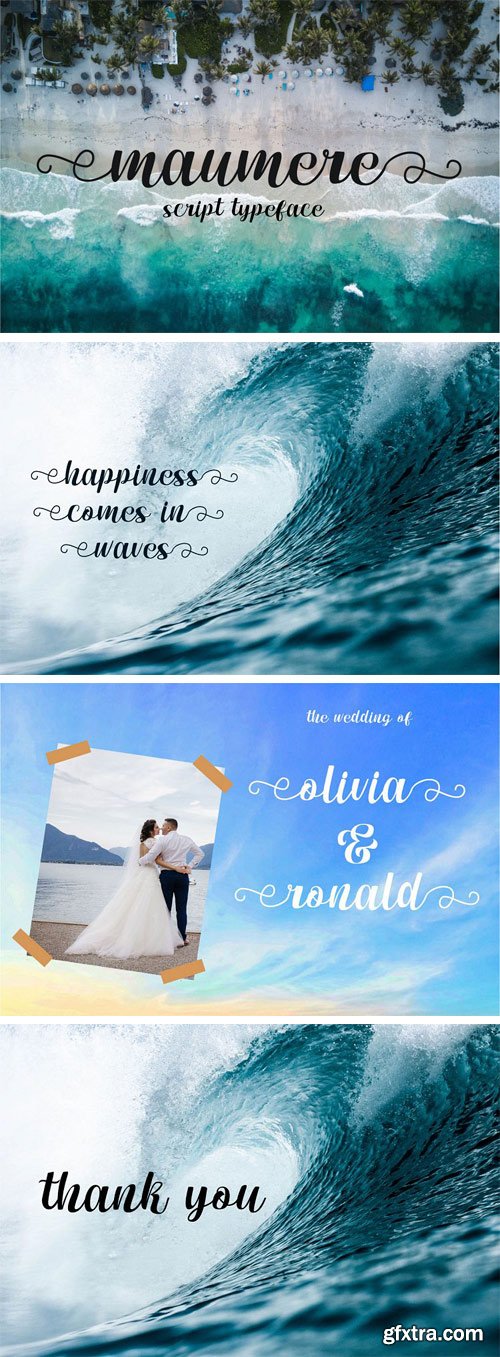
Maumere Script 192703
Meet maumere script, a beautiful script with a beginning and ending swash, it's perfect for your design project, such as a quote, wedding invitation, logo, and many more!